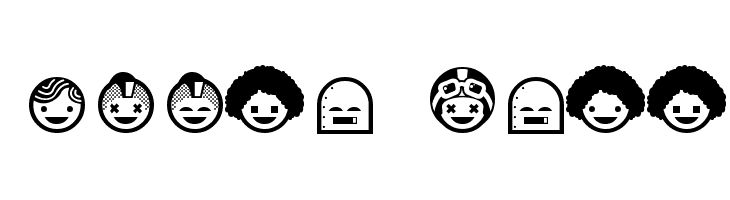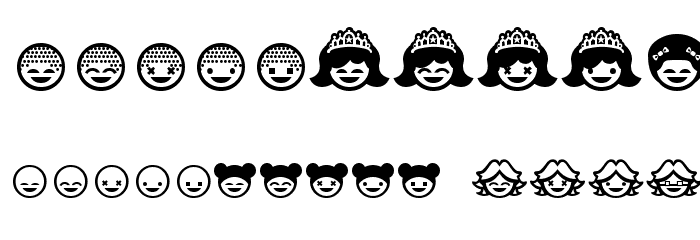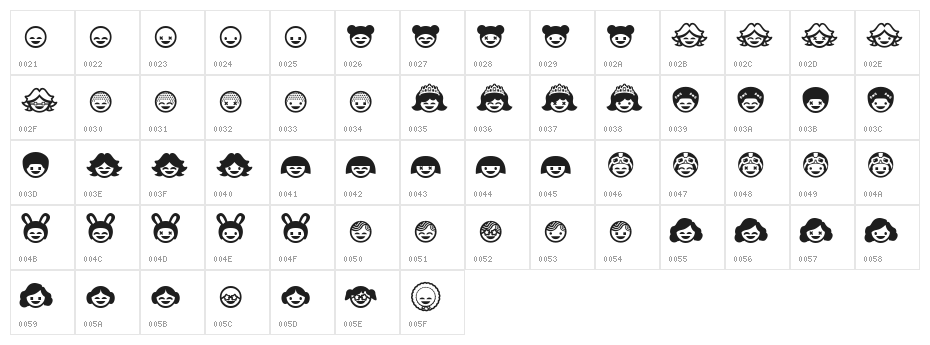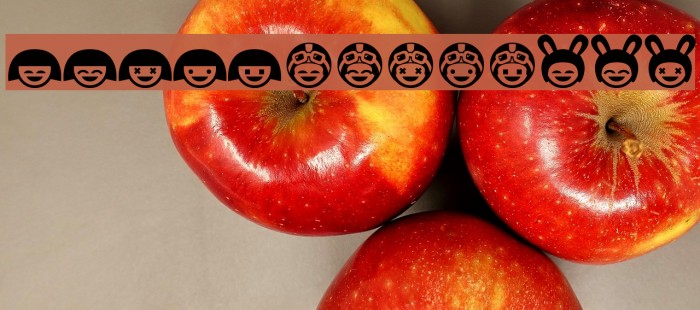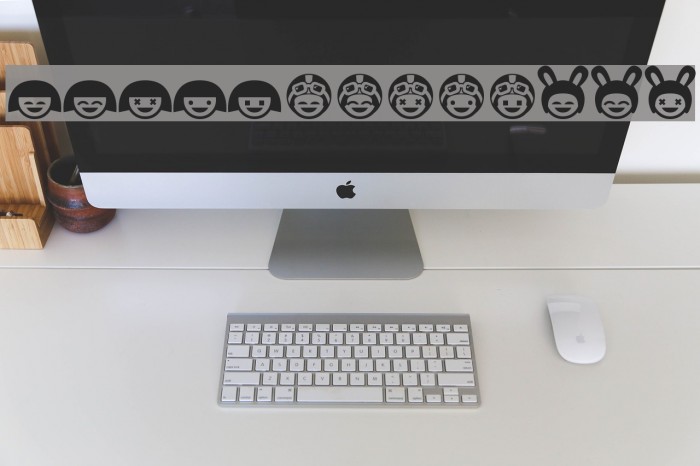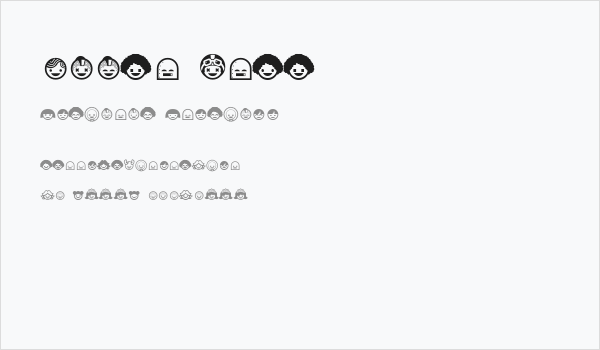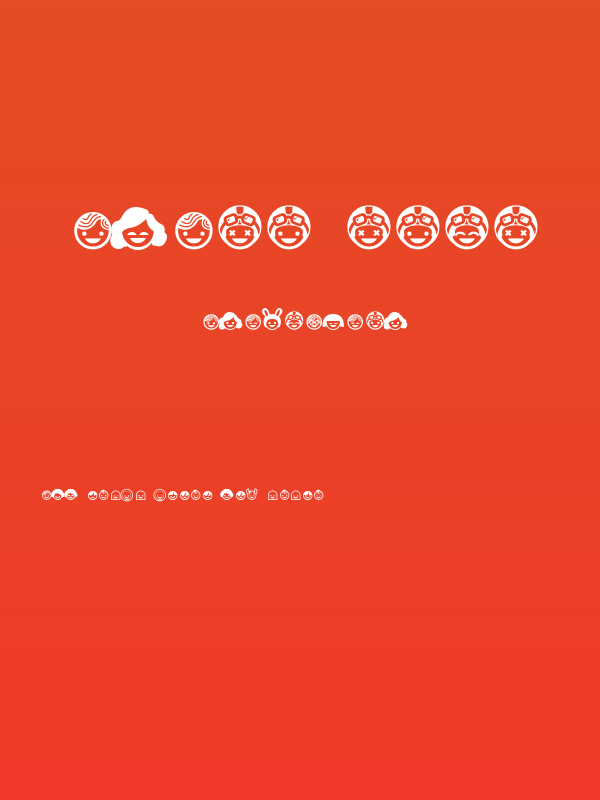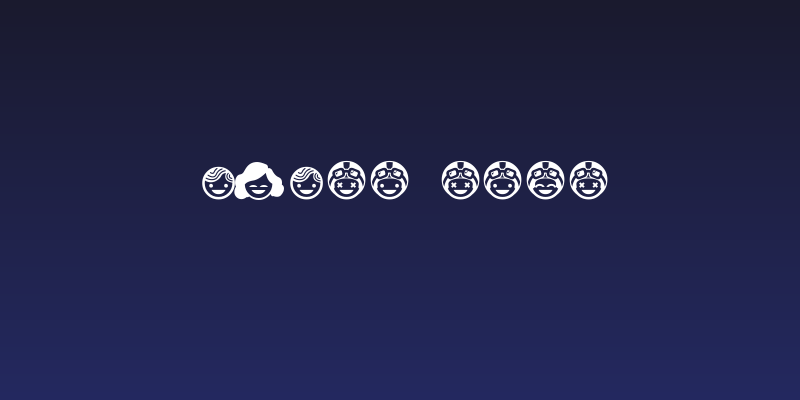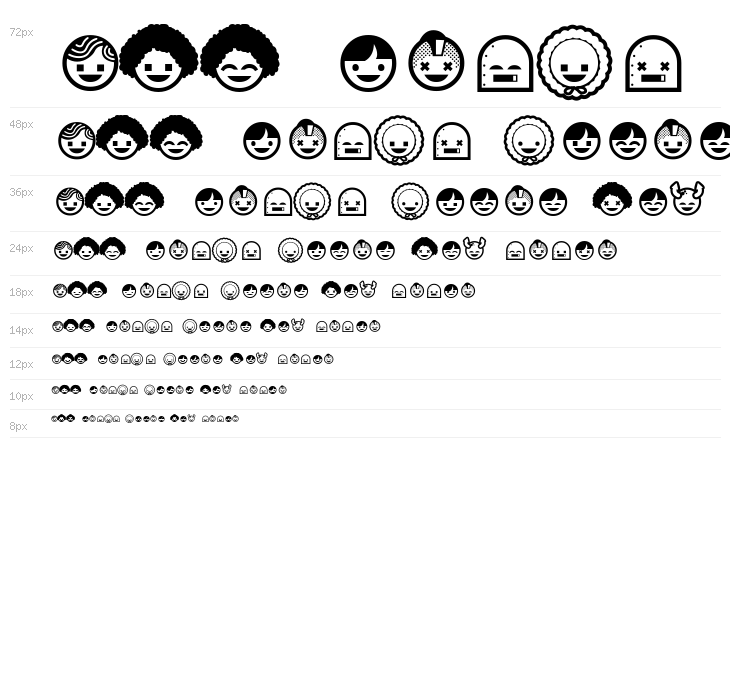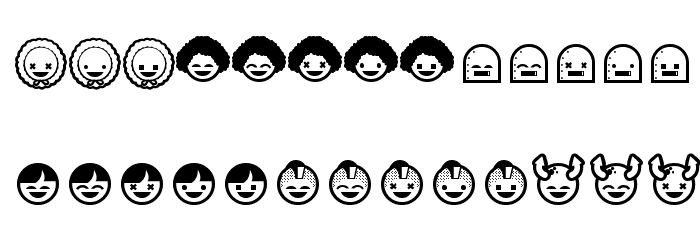
Sushi High Font
Sushi High Description
A playful, highly decorative font composed of stylized cartoon faces and character icons, each glyph featuring unique hair, accessories, or facial expressions, with bold outlines and filled shapes for strong visual impact.
| Overall Style | Playful, Decorative, Whimsical |
| Use Case | Logos, Headlines, Posters, Themed Events |
| Proposed Projects | ChildrenΓ’β¬β’s books, party invitations, educational materials, playful branding, stickers, and social media graphics. |